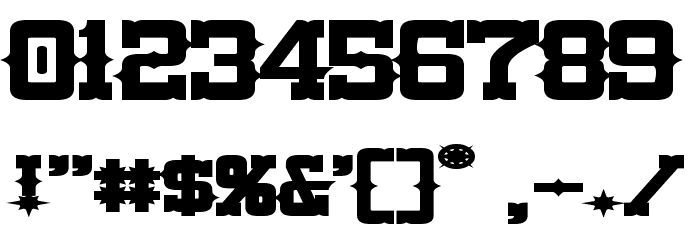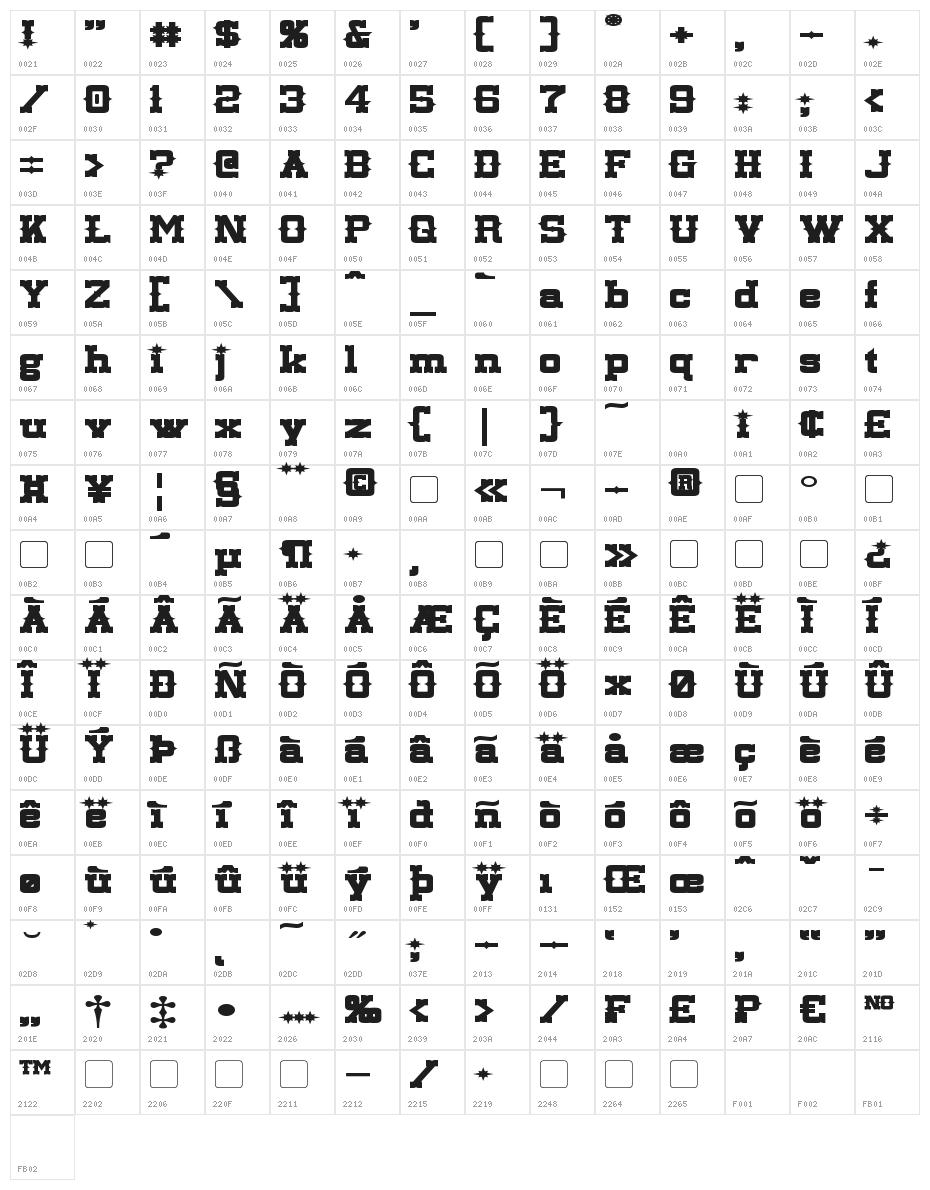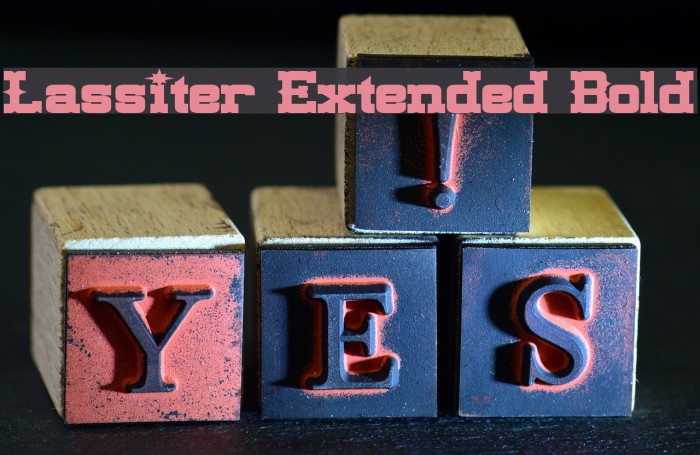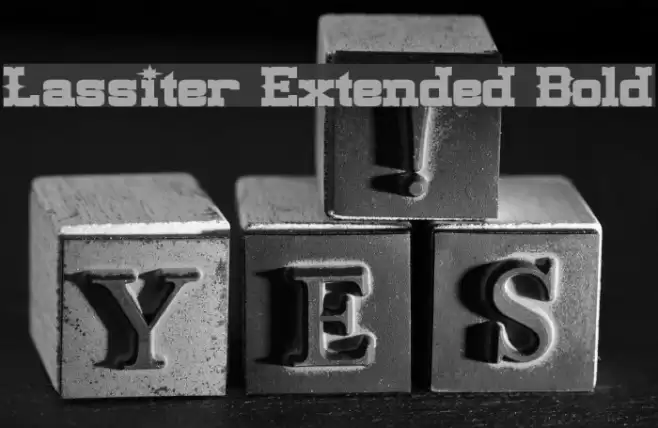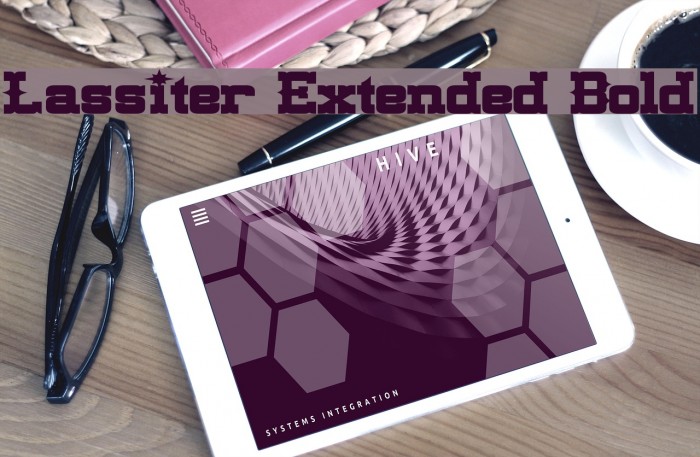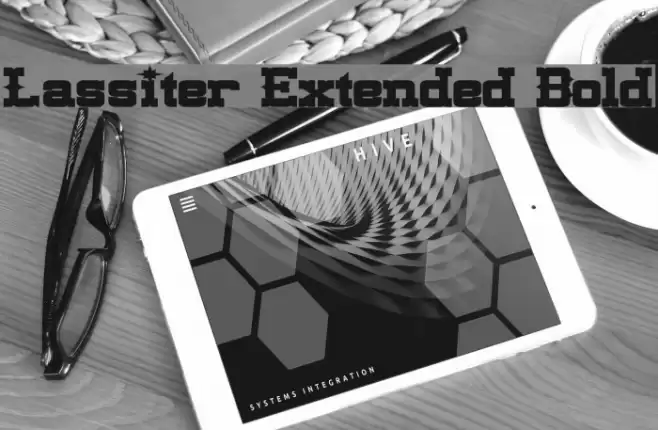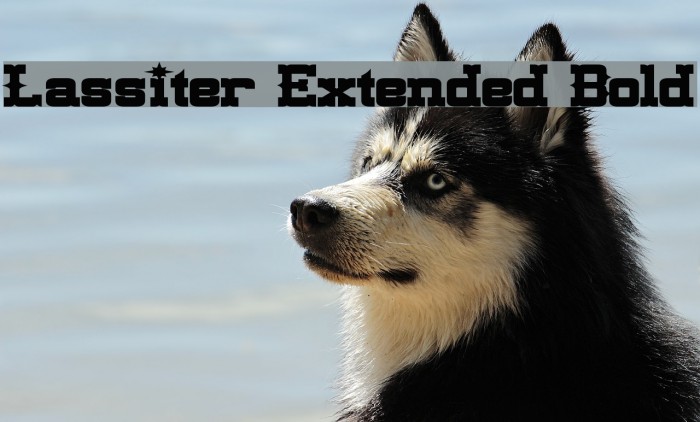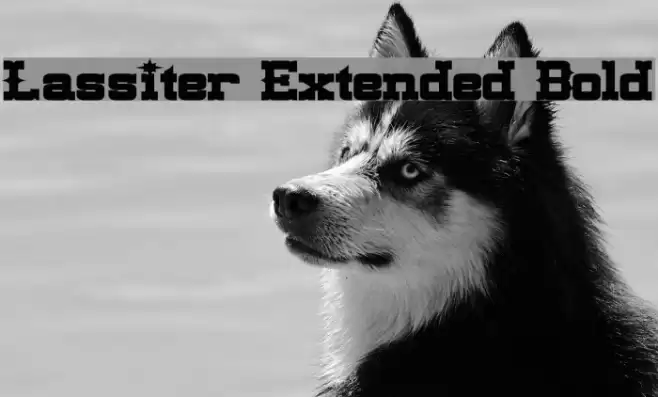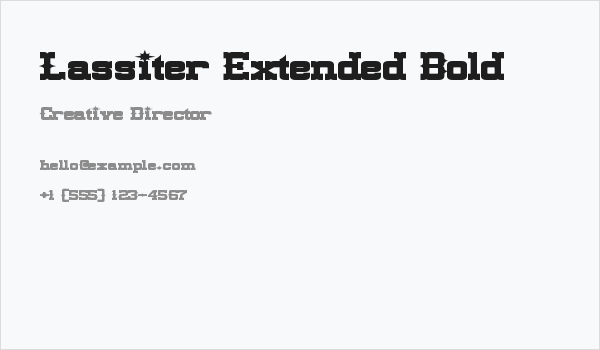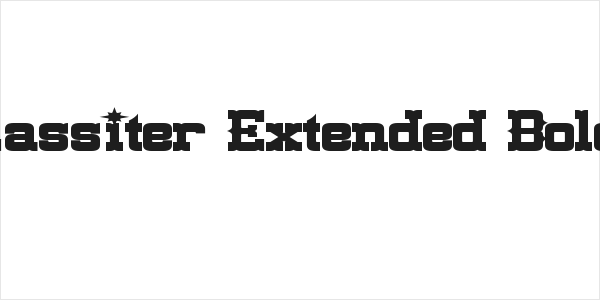
Lassiter Extended Bold Font
Lassiter Extended Bold Description
This font features a bold and extended style with a distinct decorative flair. The characters are robust and heavily weighted, making them stand out prominently. The uppercase letters are particularly striking, with unique star-like embellishments that add a touch of whimsy and creativity. The lowercase letters maintain a consistent weight, ensuring readability while still offering a playful aesthetic. Numbers and special characters follow the same bold design, providing a cohesive look across all elements. The overall appearance is both eye-catching and versatile, suitable for a variety of creative projects.
| Proposed Projects | Ideal for posters, logos, and branding materials that require a bold and creative touch. |